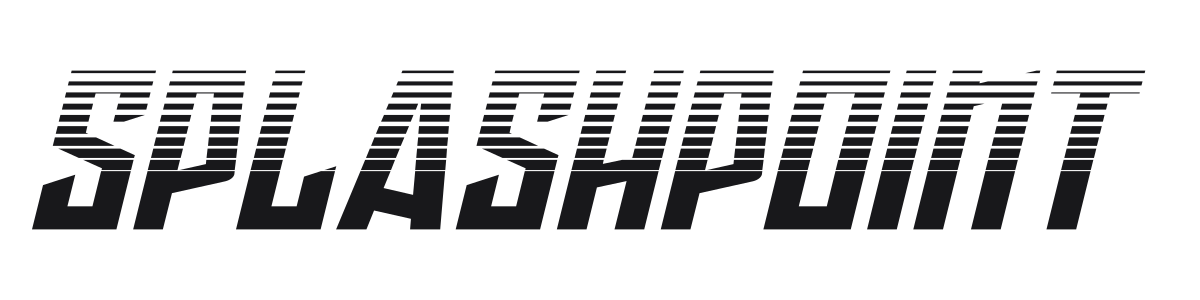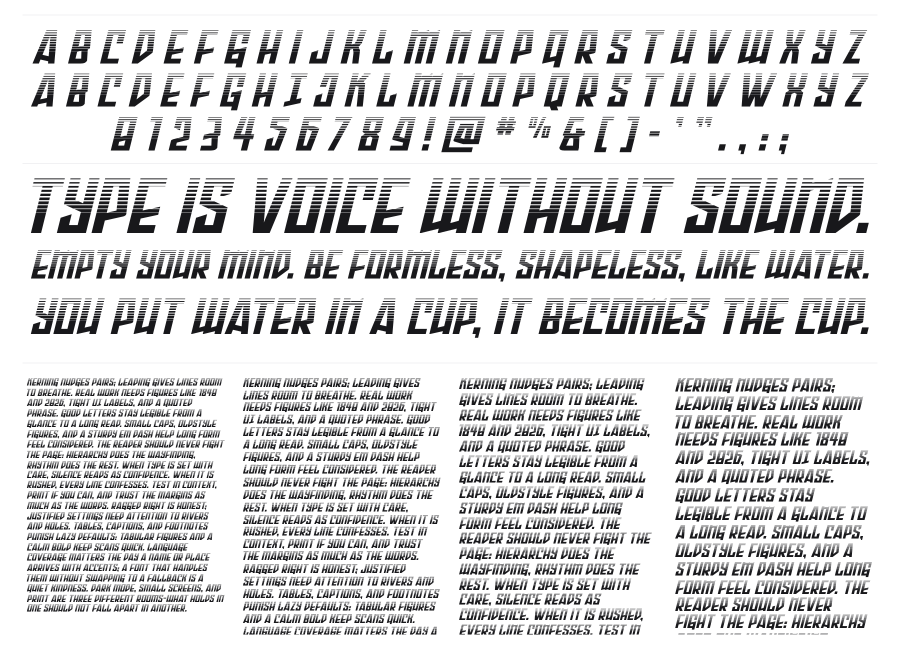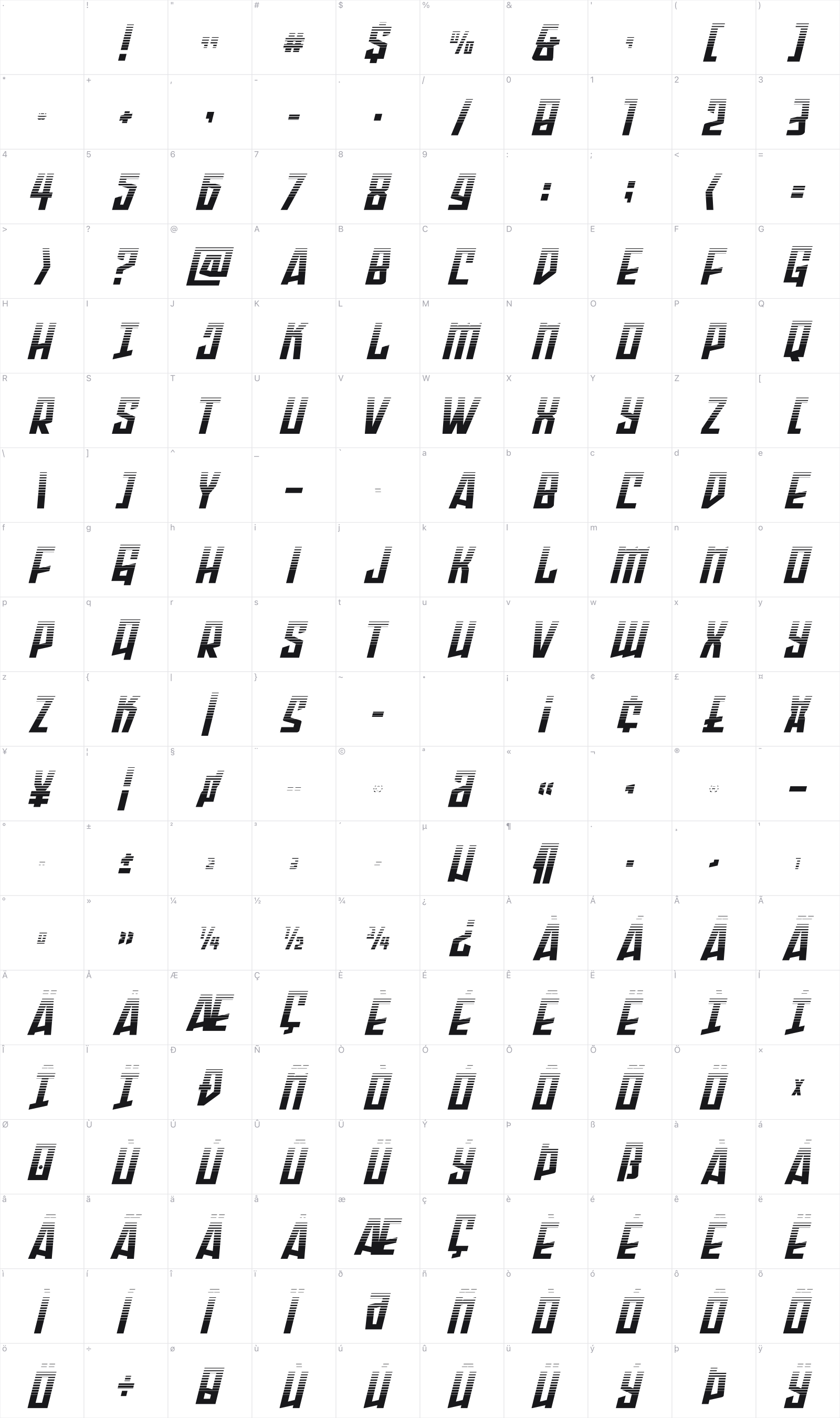
Splashpoint
Splashpoint is a bold condensed italic display face built around a horizontal scan-line gradient effect that fades each character from solid black into banded stripes. The extreme italic slant and tight condensed proportions push the sense of speed and forward motion. It reads fast, loud, and kinetic at headline sizes.